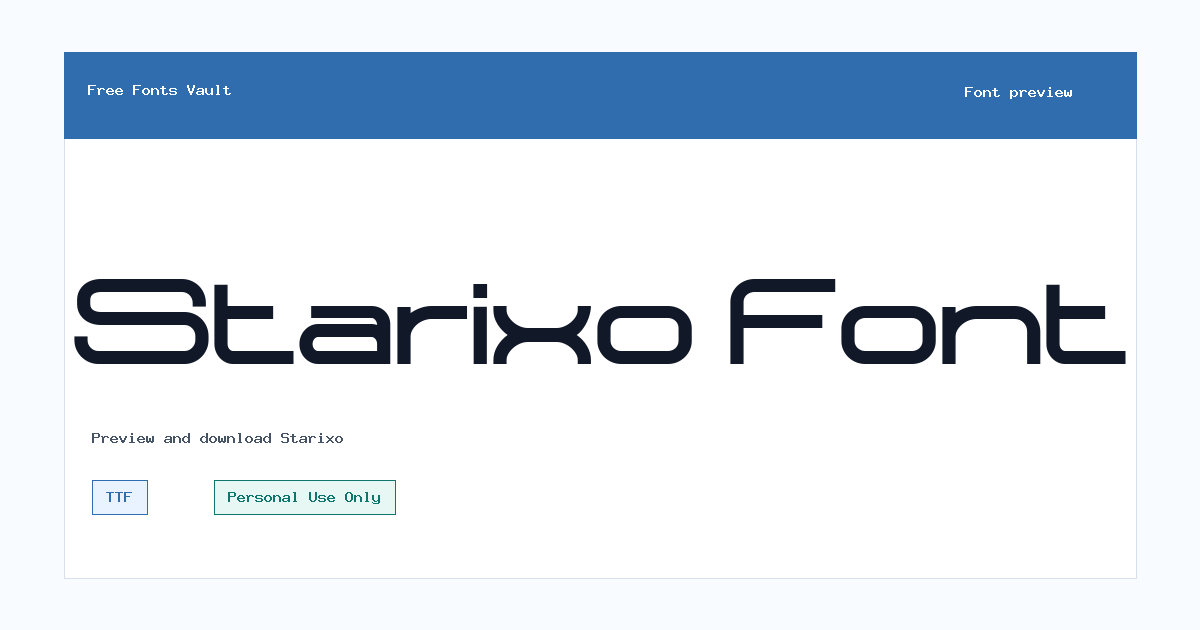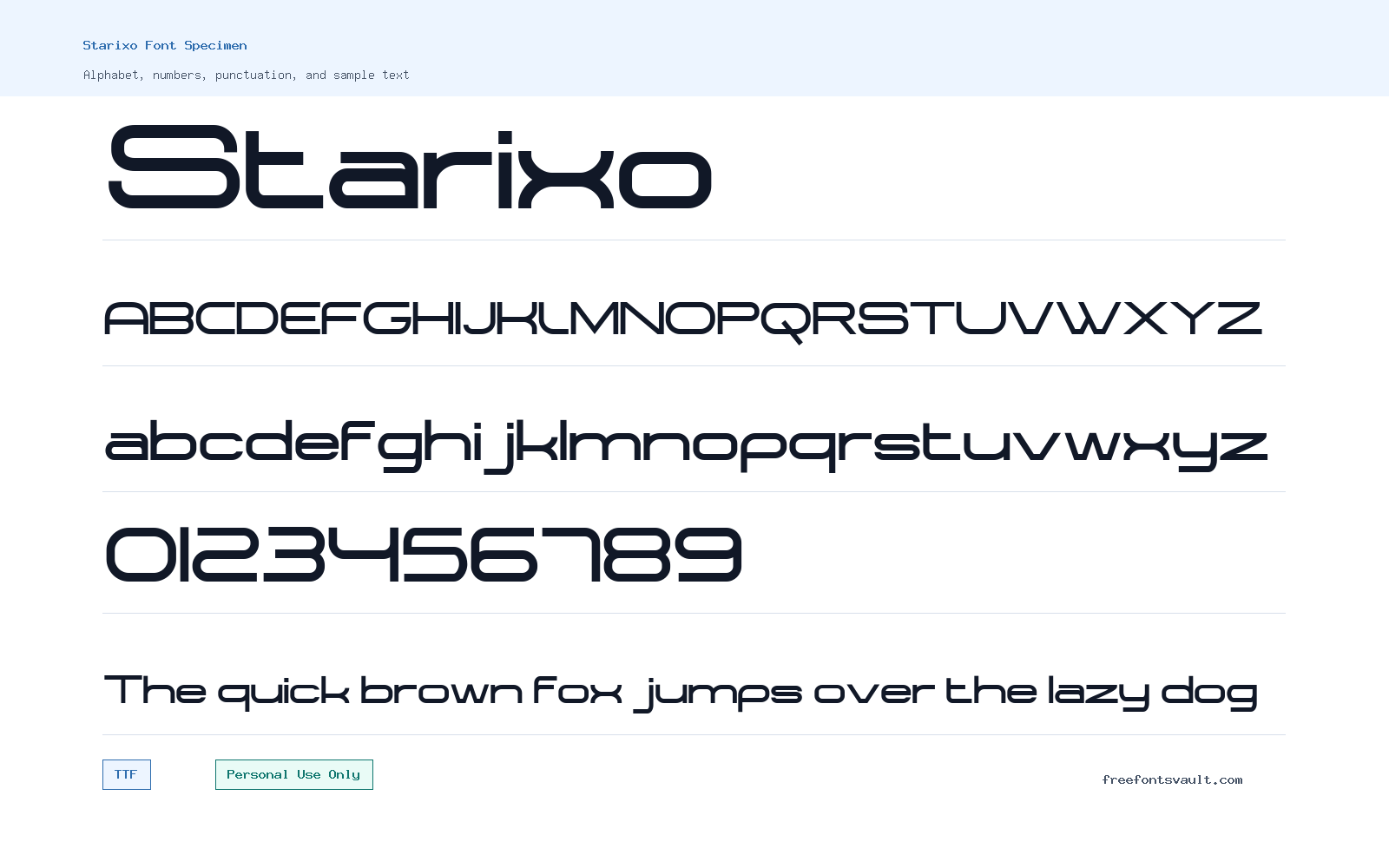
Starixo
Starixo Font
Starixo is a display font made for short, eye-catching text. Its single regular TTF style is best used where the lettering can be shown large, such as titles, poster text, logo drafts, and social graphics.
About Starixo Font
Starixo has the role of a display face rather than a long-reading text font. That means it is most useful when you want a word, name, headline, or short phrase to stand out quickly. Use the preview box to test the exact letters you need before downloading, especially if your design depends on numbers, punctuation, or mixed uppercase and lowercase text. Display fonts can look very different from one word to another, so a quick custom preview is often more useful than judging from the font name alone.
For design work, start with Starixo in large sizes and keep the surrounding layout simple. It can work well for posters, thumbnails, gaming-style titles, event graphics, cover mockups, and personal branding concepts. Avoid using it for paragraphs, small captions, or dense interface text, because decorative display lettering usually loses clarity when it is reduced. If you need supporting text, pair Starixo with a clean sans serif or a plain serif so the headline stays readable and the smaller copy does not compete with it.
• Display-focused design for large headlines and short text
• Poster titles, cover text, and social media graphics
• Personal logo drafts, name designs, and headline experiments
Starixo is credited to Keristyper Team, with kerismaker listed as the foundry.
What is Starixo best used for?
It is best for short display text such as headlines, posters, thumbnails, titles, and personal logo concepts. It is not the best choice for long paragraphs.
Who designed Starixo?
The font is credited to Keristyper Team.